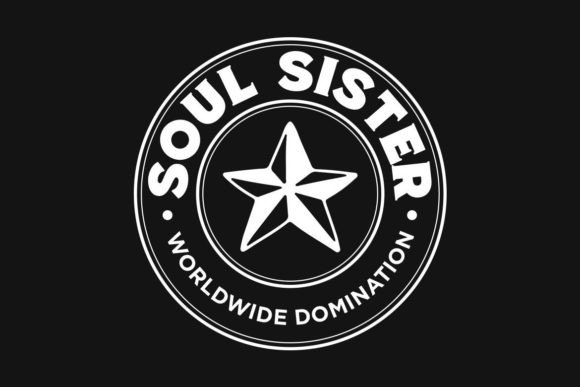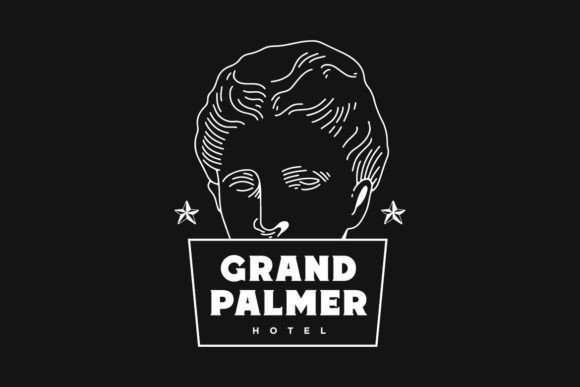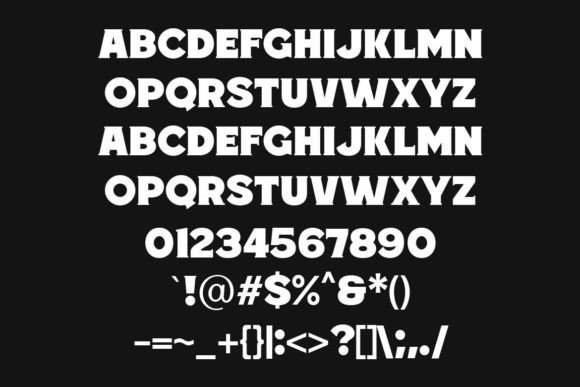
Bremin Font
Make your presence stronger with Bremin font. A vintage bold serif typeface with an all-caps style.Perfectly fit for men’s apparel, clothing line, logo, branding, streetwear, garage, motorcycle events, vintage poster, and many more.